This collection highlights colorful playful doodle fonts with bright hand-drawn style. It brings together ten lively fonts. Each design feels casual and cheerful. The theme suits lighthearted projects and bold creative work. Designers and content creators will find options for posters, packaging, and social media. Styles range from thin outlines to bold filled strokes.
Teachers, parents, and small business owners can use these fonts for flyers and kid-focused materials. Use them for logos, headings, greeting cards, and playful branding. They work well in print and digital layouts. Sample pairings and usage notes help you match fonts to projects. Each font includes alternates and playful glyphs. Try them at large sizes for impact.
Bright Rainbow School Doodle Font
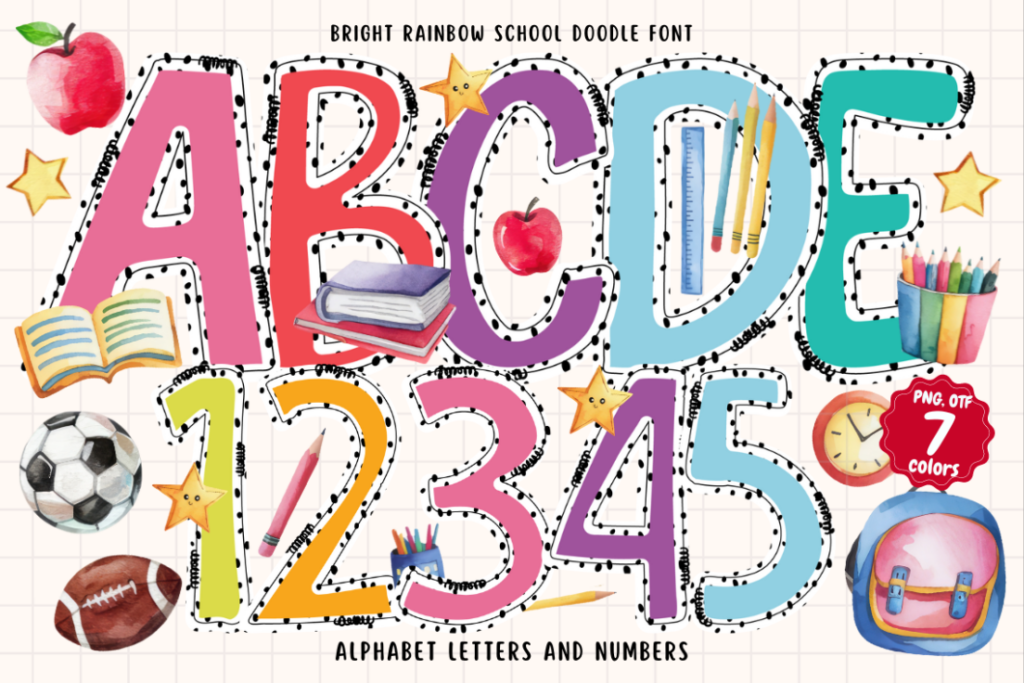
A cheerful color OpenType-SVG font filled with bold rainbow letters and playful doodle accents. Use it for birthday invitations, classroom posters, party signage, and fun printable projects. Ideal for school activities, holiday crafts, scrapbooks, stickers, and cheerful social graphics. This color font supports layered glyphs so you can combine hues for eye-catching effects. Play with sizes, mix doodle marks, and build lively layouts for prints and digital artwork.
Pencils Font
A playful, three-dimensional color font that mirrors classic yellow pencils with wood textures and graphite tips. Each letter stands like a tiny pencil, giving handmade charm to projects aimed at children and educators alike. Perfect for classroom posters, bulletin boards, lesson materials, party invites, and playful branding. You get OTF, TTF, WOFF, SVG, plus high-resolution transparent PNG files ready for print and web use. This color OpenType-SVG font adds bold outlines, vivid fills, and tactile depth to headlines, signs, and digital layouts.
Sugar Bee Font Font
This whimsical color font pairs playful bee doodles with a soft script and hand-drawn accents. Use it for spring craft labels, kids’ printables, and birthday cards, and seasonal party signage. Designers can add it to logos, packaging, and party invitations, or small business branding. Teachers will love it for classroom posters, flashcards, and bulletin boards. It also works great for planner stickers, social posts, and cheerful home decor accents, and more.
Heartwhirl Font
Four Valentine-themed color fonts blend playful hand-drawn doodle outlines with vibrant color strokes. Use them together or separately for cards, invitations, social posts, and stickers. Filled details and curated elements add whimsical depth and texture to your designs. Color fonts require compatible design programs, while the black version works with cutting machines. Layer colors for gift tags, printables, apparel mockups, party signage, and scrapbooks.
Fox Comic Font
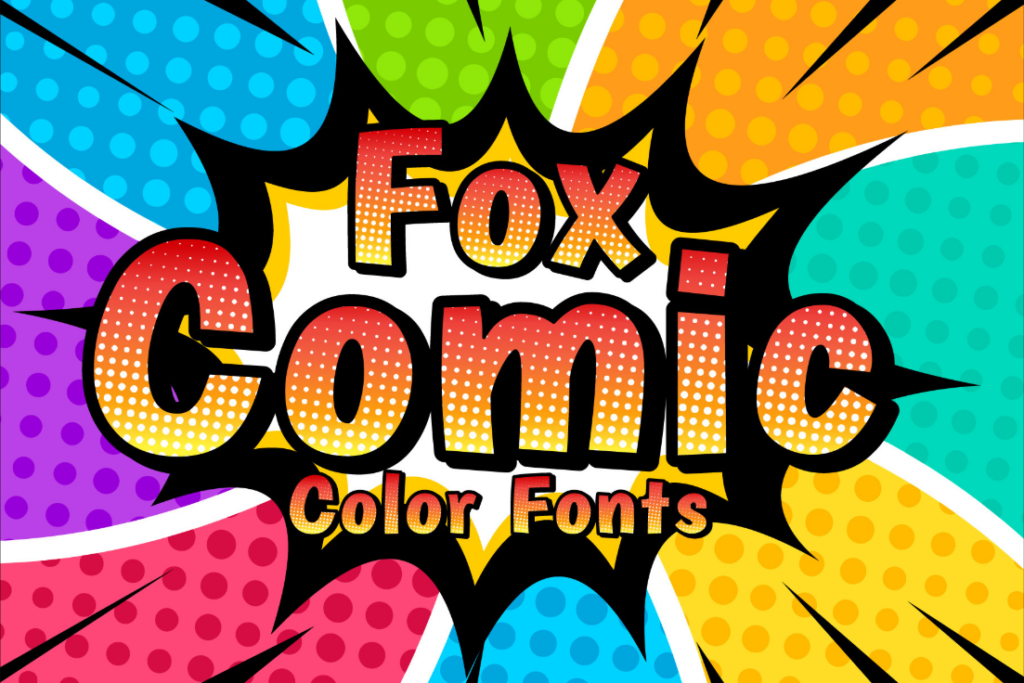
Bright, hand-drawn color letters give headlines instant personality and lively character, and they read well at large sizes. Use it for kids’ book covers, comic strips, classroom posters, and activity sheets. It also shines on birthday invites, playful packaging, stickers, social posts, and fun merch. Layer colors, add outlines, or pair with simple sans fonts for balance, and try shadow effects for depth. The doodle vibe works well with hand-drawn illustrations, casual branding, and seasonal themes.
Groovy Mama Font
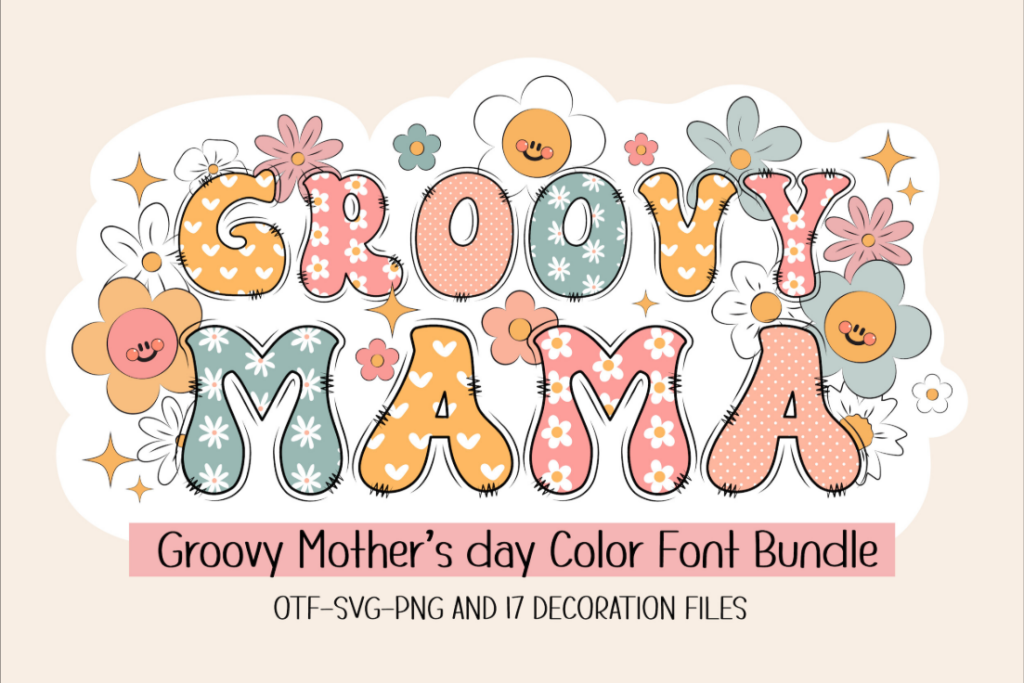
Bright, groovy letterforms and floral doodles make it easy to design Mother’s Day gifts. Four playful styles and matching PNG extras suit shirts, mugs, posters, tote bags, and vinyl projects. Use handwritten alternates for names, labels, or heartfelt cards with a retro vibe. Mix styles for layered prints or export PNGs for easy sublimation and sticker art. Simple, colorful designs add warmth to scrapbooks, digital downloads, gift tags, party invites, and craft fairs.
Groovy Easter Font
A groovy, retro 4-color font with painted Easter egg patterns brings vintage charm to every spring design. Use it for Easter posters, social quotes, custom T-shirts, and playful name tags for baskets. Includes twenty doodle cliparts of eggs, bunnies, flowers, and accents for quick decorating. Layer the four colors for eye-catching headlines and retro badges on cards and labels. Perfect for craft prints, vinyl decals, DIY invites, and playful classroom projects this spring.
Spring Medley Font
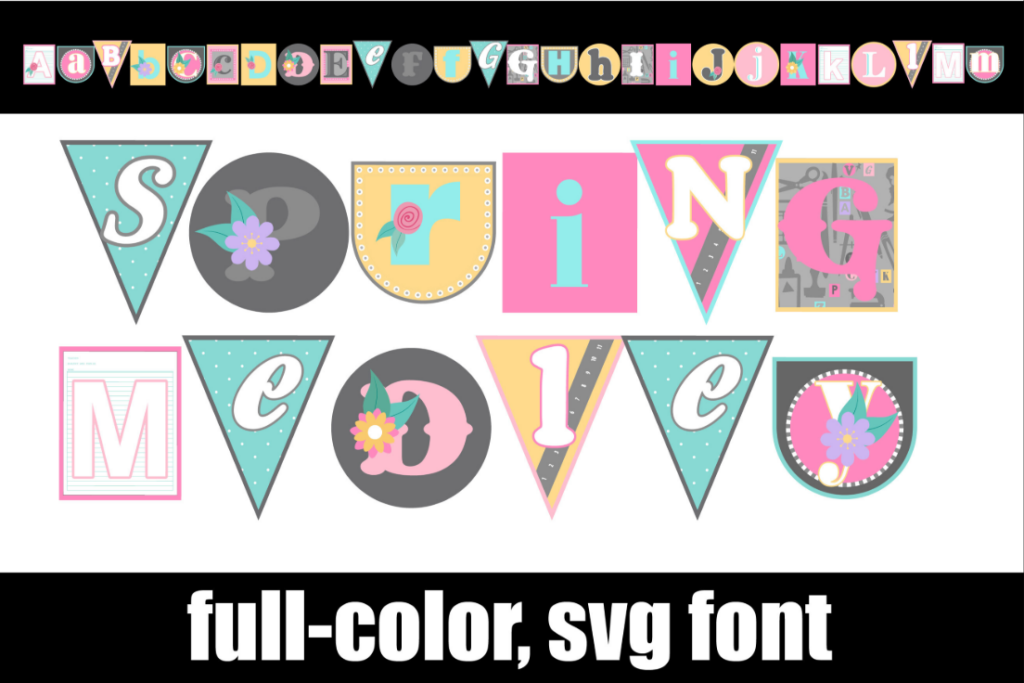
This bright bunting font mixes styles and spring colors for playful headings and crafts. Use the alternate case to swap in different color letter versions via your glyph map for custom word art. The font is a full-color OpenType (SVG) file and installs like any normal OpenType font. It scales cleanly for print, stickers, shirts, tags, cards, labels, social posts, and party decor everywhere.
Summer Beach Font
Each letter wears a playful palm tree motif that brings a sunny, relaxed mood everywhere. Use it for summer event flyers, beach party invites, vacation posters, and social media graphics. It works great on t-shirts, menus, book covers, blogs, cards, stickers, and packaging labels. Mix it with bold colors, hand-drawn textures, or simple layouts for a fresh, beachy look. Try layered type, playful color blocking, or cutout stickers for crafts and summer branding.
Conclusion
These colorful playful doodle fonts with bright hand-drawn style add lively charm to posters, cards, and kid-friendly branding. They read clearly at display sizes and keep a handmade, joyful vibe. They suit invitations, kid books, posters, and whimsical branding projects, while feeling fresh and personal. Try pairing them with bold color blocks, simple icons, or textured paper. Use them for party signage, classroom labels, stickers, and playful packaging. Sketch around letters to extend doodle feel. Mix sizes and weights for contrast. Let color choices set the mood and guide your layouts.